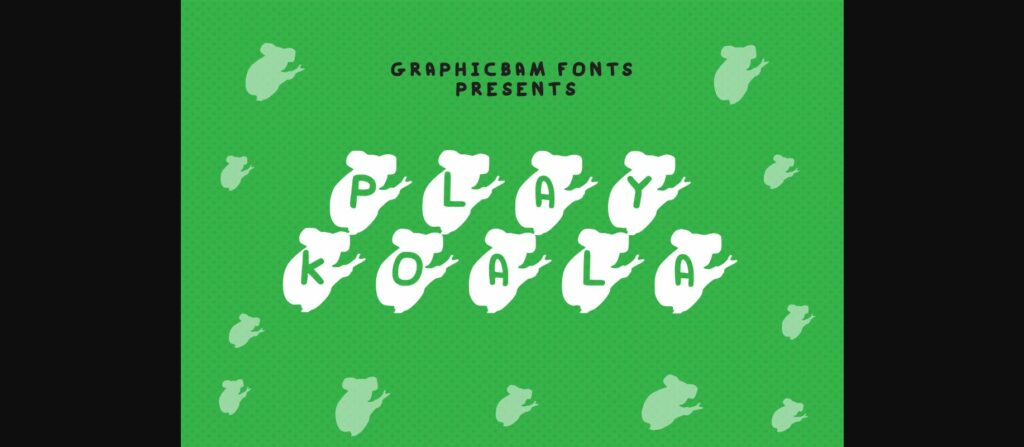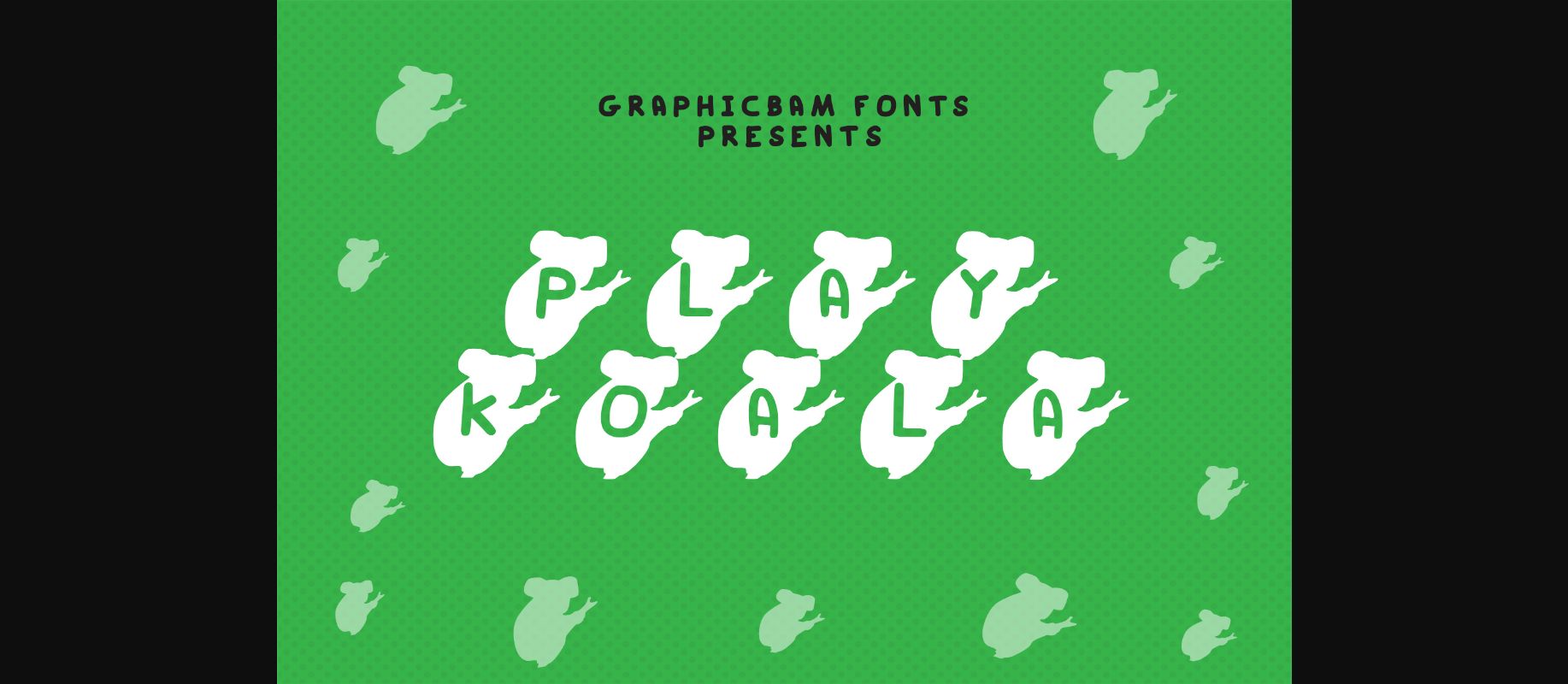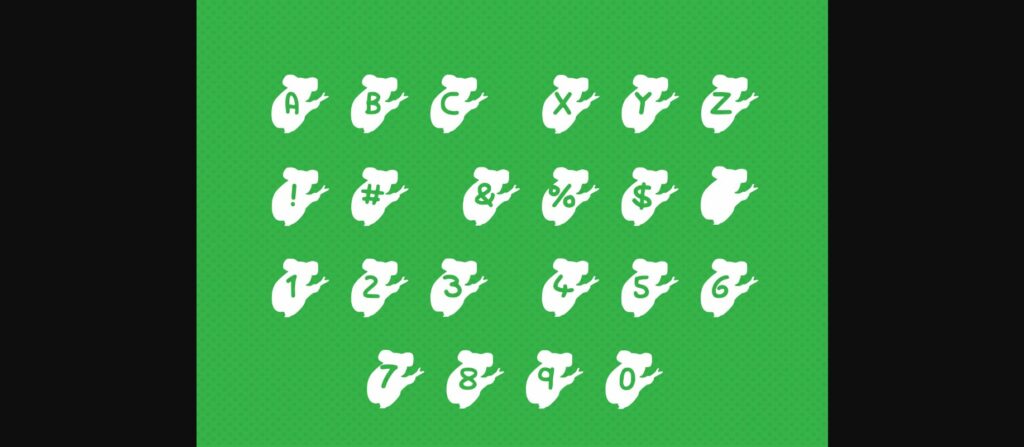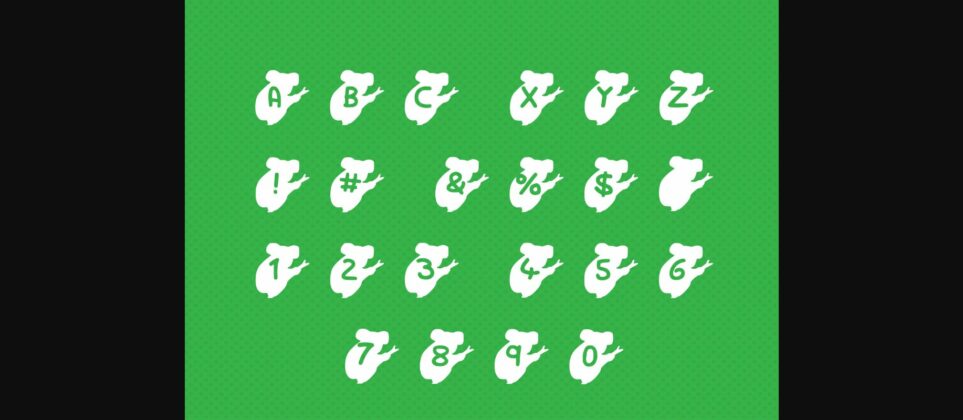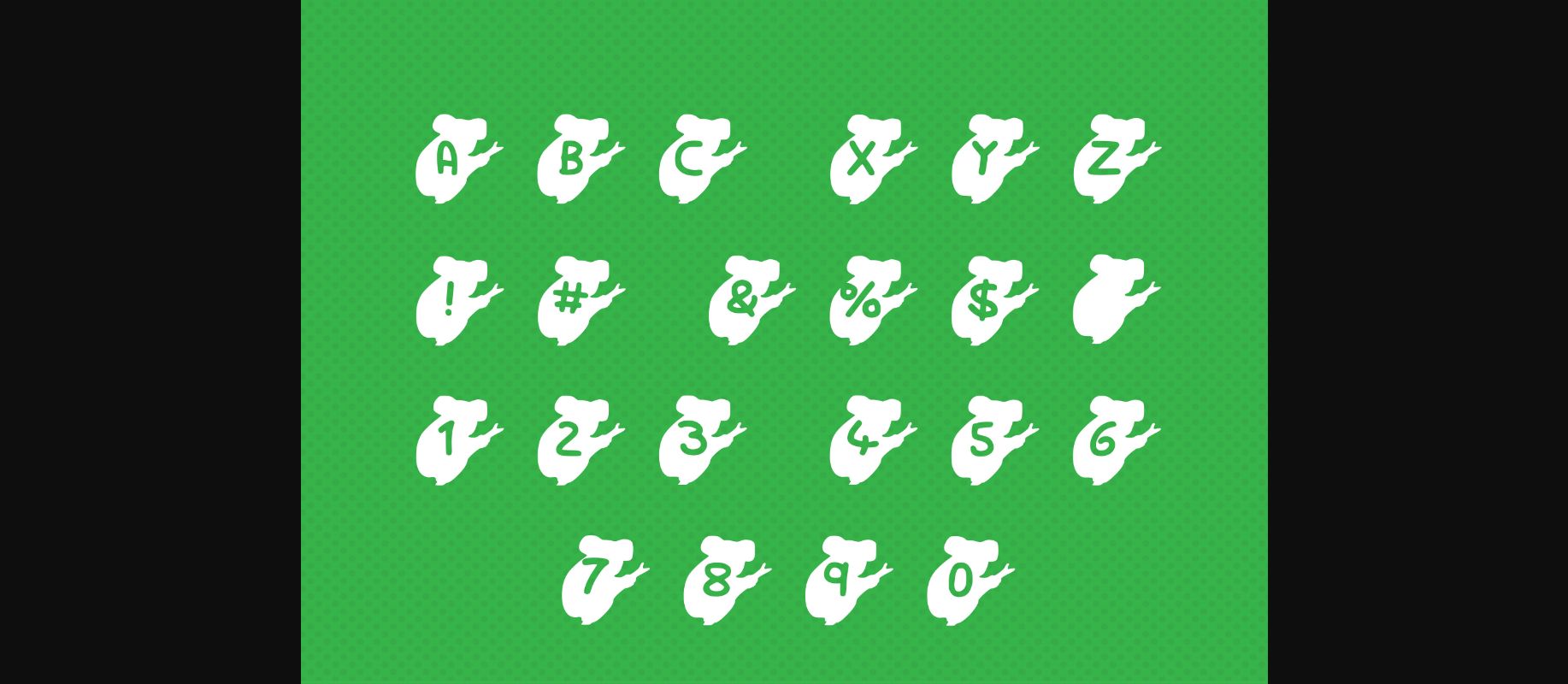
About Play Koala Bear Font
Play Koala – a decorative font that will fill your designs with cute letters inside koala bears. This typeface works well with projects related to animals, children, school, or adorable creatures.